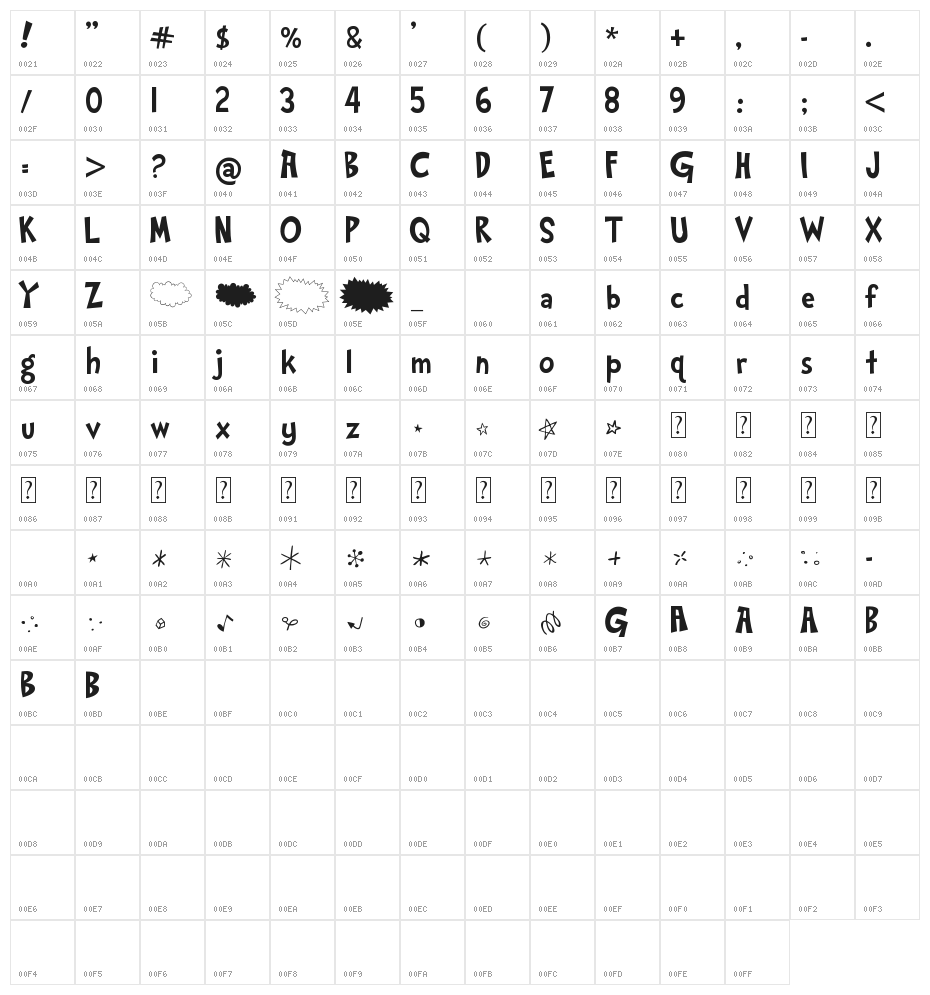
Gabbaland Font
Gabbaland Description
This playful and bold font features a whimsical and energetic style, characterized by its irregular and dynamic letterforms. The uppercase letters are bold and slightly tilted, giving a sense of movement and fun. The lowercase letters maintain a consistent style with a slightly more subdued appearance, yet still retain the playful essence. The numbers are bold and clear, making them easily readable. Special characters are creatively designed to match the overall playful theme. This font is perfect for projects that require a lively and engaging aesthetic.
| Overall Style | Playful, Energetic, Whimsical |